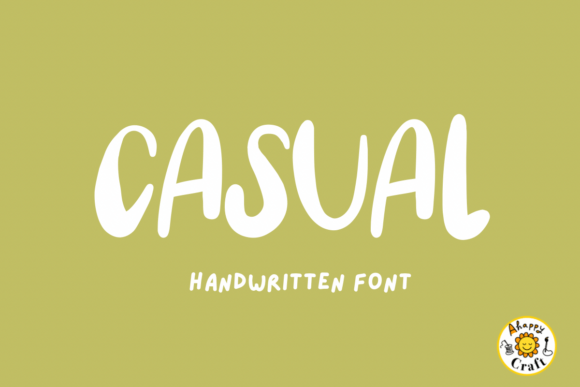
Casual Font: The Perfect Choice for Friendly and Approachable Designs
When it comes to creating designs that exude a sense of relaxation and friendliness, the font choice plays a crucial role. This is where the Casual font comes in – a cheerful and approachable handwritten font that is designed to bring a relaxed, friendly vibe to your projects. With its rounded shapes and smooth strokes, Casual is the perfect typeface for a wide range of applications, from educational materials and DIY crafts to quotes, social media posts, and children’s designs.
The Characteristics of Casual Font
Casual font is a handwritten typeface that boasts a unique set of characteristics that make it stand out from other fonts. Its rounded shapes and smooth strokes give it a soft, gentle appearance that is both soothing and inviting. The font is simple yet expressive, making it an excellent choice for designers who want to add personality to their projects without overwhelming the message.
The Benefits of Using Casual Font
There are several benefits to using Casual font in your designs. For one, it is an excellent choice for projects that require a friendly and approachable tone. The font is perfect for educational materials, such as textbooks, workbooks, and activity sheets, as it makes learning fun and engaging. Additionally, Casual font is ideal for DIY crafts, quotes, and social media posts, as it adds a personal touch that resonates with audiences.
Why Choose Casual Font for Your Projects?
So, why choose Casual font for your projects? Here are a few compelling reasons:
- Readability: Casual font is designed to be easy to read, making it perfect for long blocks of text.
- Personality: The font has a unique personality that shines through in every design.
- Versatility: Casual font can be used for a wide range of projects, from educational materials to social media posts.
- Charm: The font has a charming, friendly vibe that makes it perfect for projects that require a personal touch.
How to Use Casual Font Effectively
To get the most out of Casual font, here are a few tips to keep in mind:
- Pair it with other fonts: Casual font pairs well with other fonts, such as sans-serif fonts, to create visual interest.
- Use it for headings and body text: Casual font is suitable for both headings and body text, making it a versatile choice.
- Experiment with colors: Casual font looks great in a variety of colors, so don’t be afraid to experiment.
Casual Font in Education
Casual font is an excellent choice for educational materials, such as textbooks, workbooks, and activity sheets. The font makes learning fun and engaging, which is essential for students of all ages. With Casual font, you can create educational materials that are both informative and visually appealing.
Casual Font in DIY Crafts
Casual font is also perfect for DIY crafts, such as handmade cards, gift tags, and scrapbooking. The font adds a personal touch that makes your crafts stand out. With Casual font, you can create unique and personalized crafts that showcase your creativity.
Casual Font in Social Media
Casual font is an excellent choice for social media posts, as it adds a friendly and approachable tone to your content. The font is perfect for creating engaging social media posts that resonate with your audience. With Casual font, you can create social media posts that are both informative and visually appealing.
Casual Font in Children’s Designs
Casual font is a great choice for children’s designs, such as children’s books, activity sheets, and posters. The font is playful and fun, making it perfect for young audiences. With Casual font, you can create children’s designs that are both entertaining and educational.
In conclusion, Casual font is a cheerful and approachable handwritten font that is designed to bring a relaxed, friendly vibe to your projects. With its rounded shapes and smooth strokes, Casual font is perfect for a wide range of applications, from educational materials and DIY crafts to quotes, social media posts, and children’s designs. Its simplicity and expressiveness make it an excellent choice for designers who want to add personality to their projects without overwhelming the message.
Key Takeaways
- Casual font is a handwritten typeface that boasts rounded shapes and smooth strokes.
- The font is perfect for educational materials, DIY crafts, quotes, social media posts, and children’s designs.
- Casual font is simple yet expressive, making it an excellent choice for designers who want to add personality to their projects.
- The font is versatile and can be used for a wide range of projects.